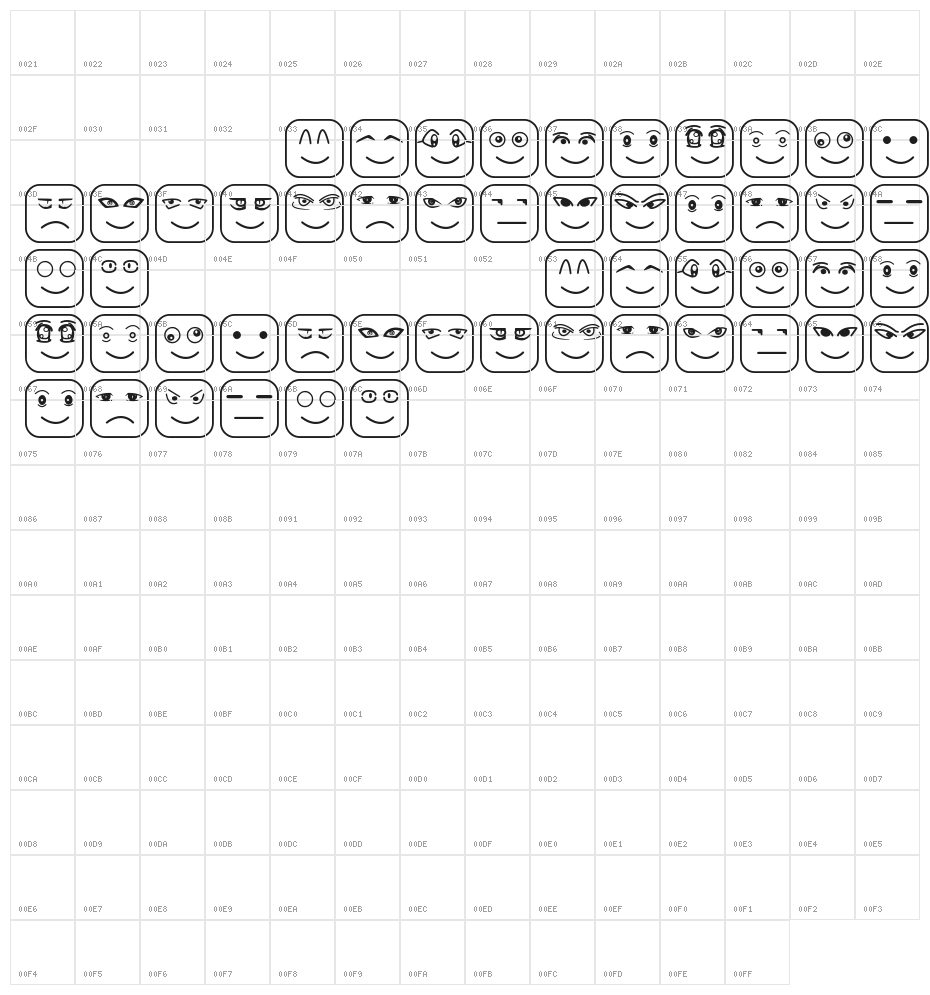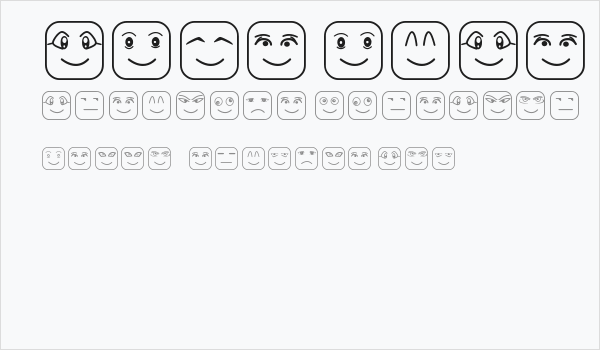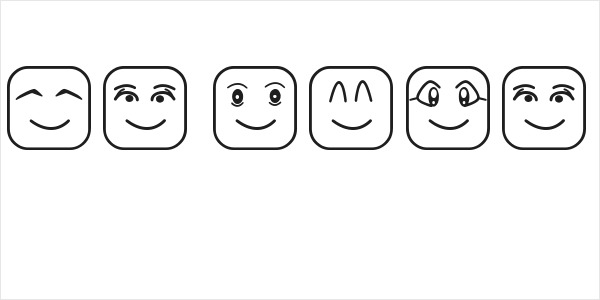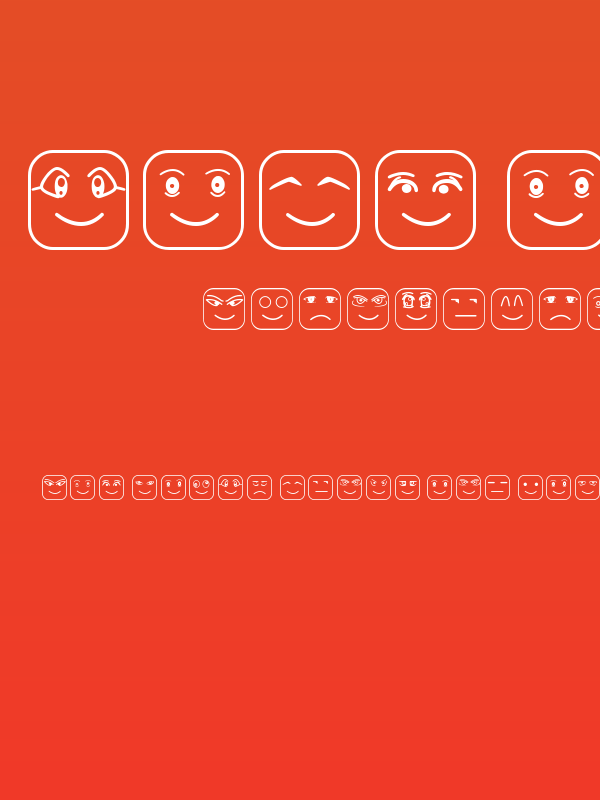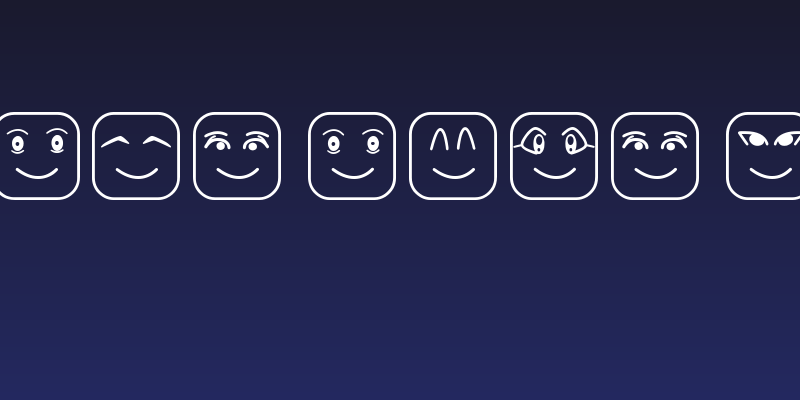
Cube Face ST Font
Cube Face ST Description
This is not a traditional font but rather a collection of emoticon-like symbols. Each character is a square with a unique facial expression, ranging from happy and sad to surprised and angry. The design is playful and cartoonish, with bold outlines and simple, expressive features. These symbols are more suited for decorative purposes rather than text-based communication, as they do not represent letters or numbers in a conventional sense.
| Use Case | Logos, Decorative elements |
| Proposed Projects | Ideal for use in digital stickers, social media graphics, or as decorative elements in playful design projects. |